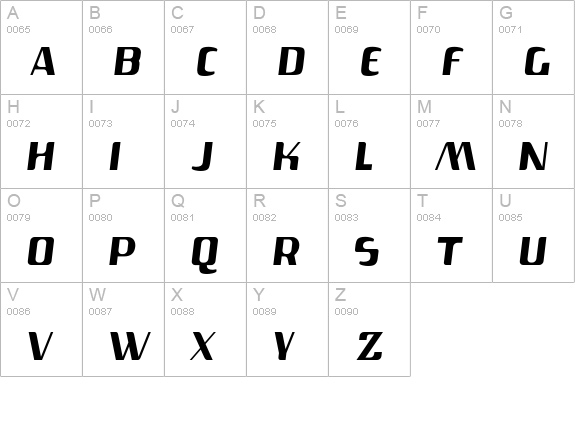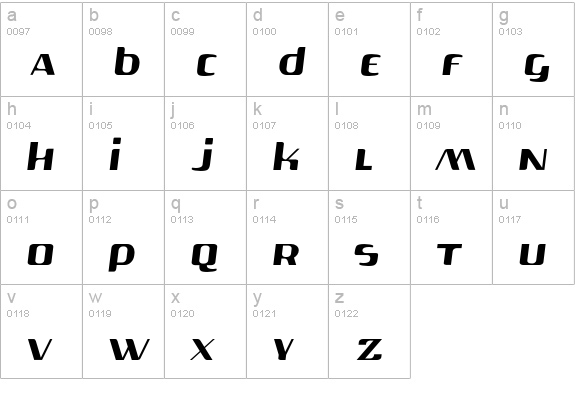
Gas-Lite Font Details
Gas-Lite font is a modern and sleek typeface that exudes sophistication and elegance. Its clean lines and sharp angles make it perfect for a wide range of design projects, from branding to editorial design. The Gas-Lite font is designed to make a statement and stand out from the crowd. What's even better is that Gas-Lite font is available for free! You can easily download this stunning font at FontsMarket.com and start using it in your projects right away. Whether you're designing a logo, creating a poster, or working on a website, Gas-Lite font will add a touch of class and style to your work. Don't miss out on this fantastic opportunity to enhance your design projects with Gas-Lite font - download it for free today!